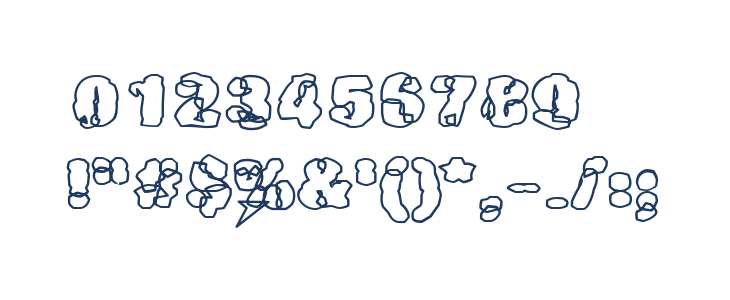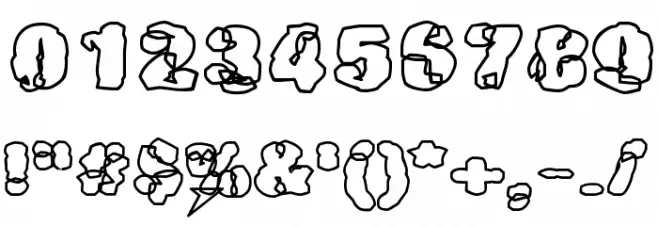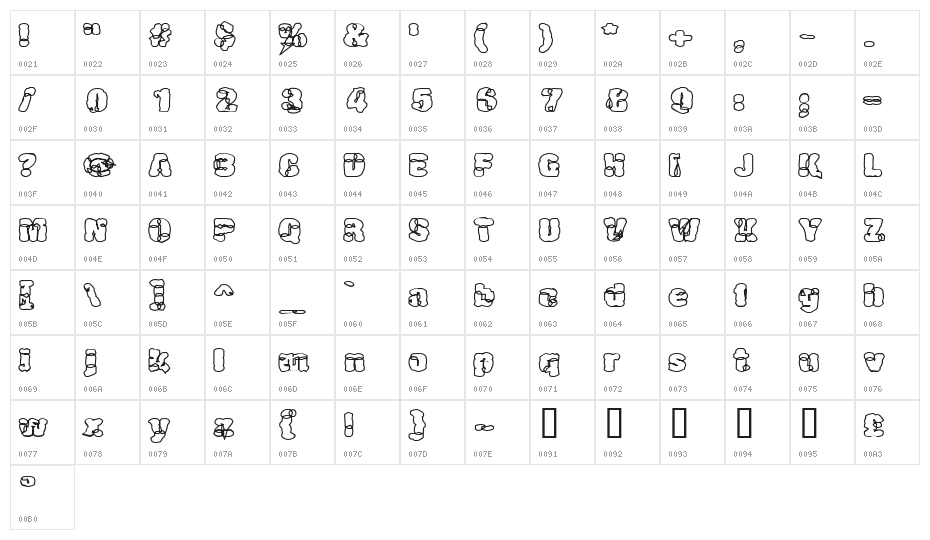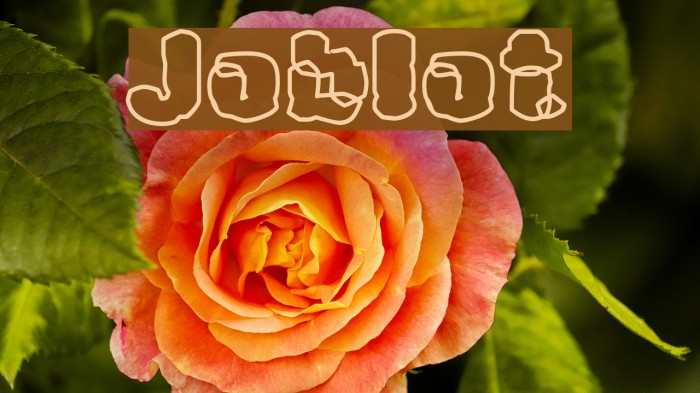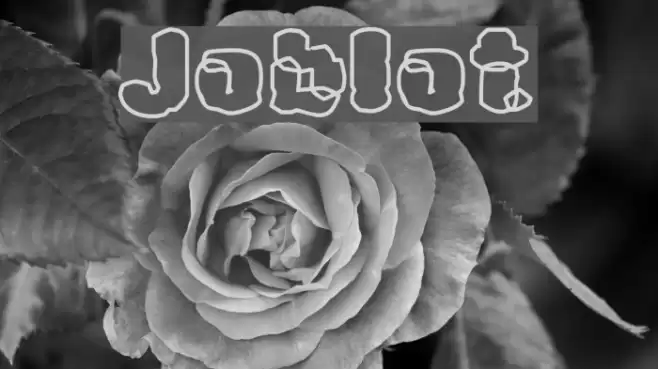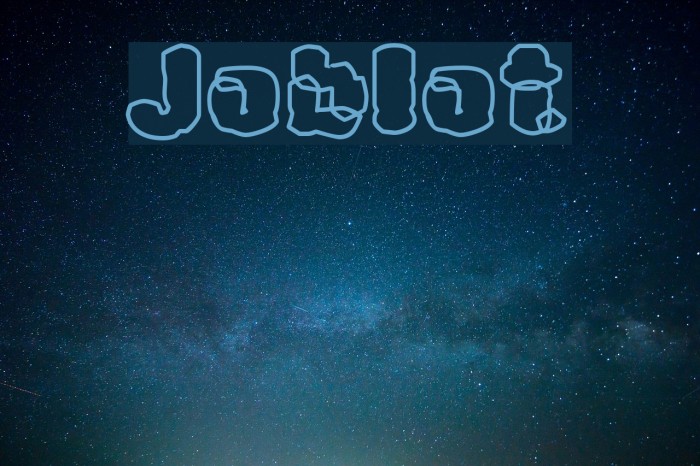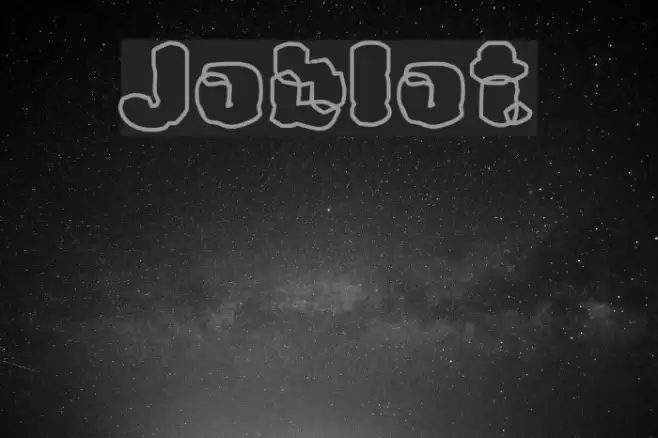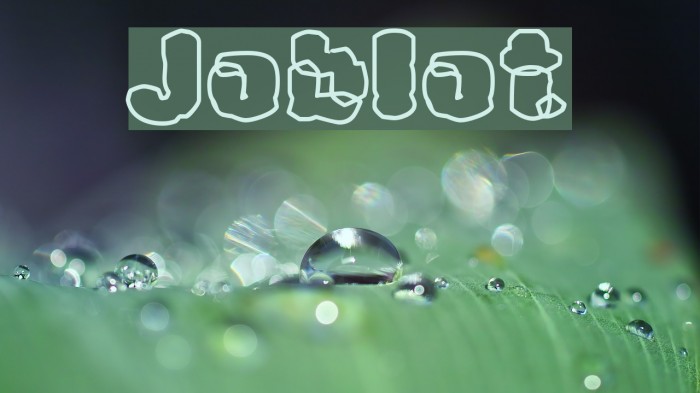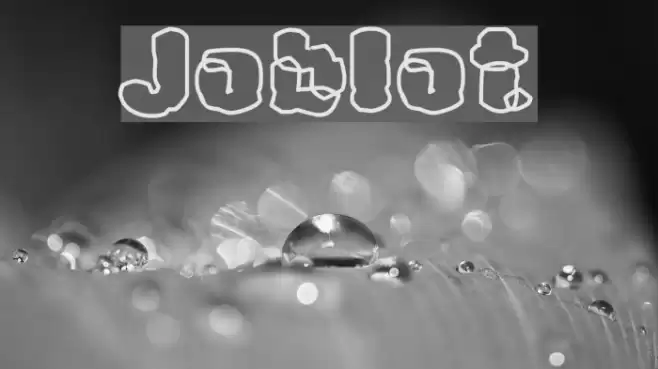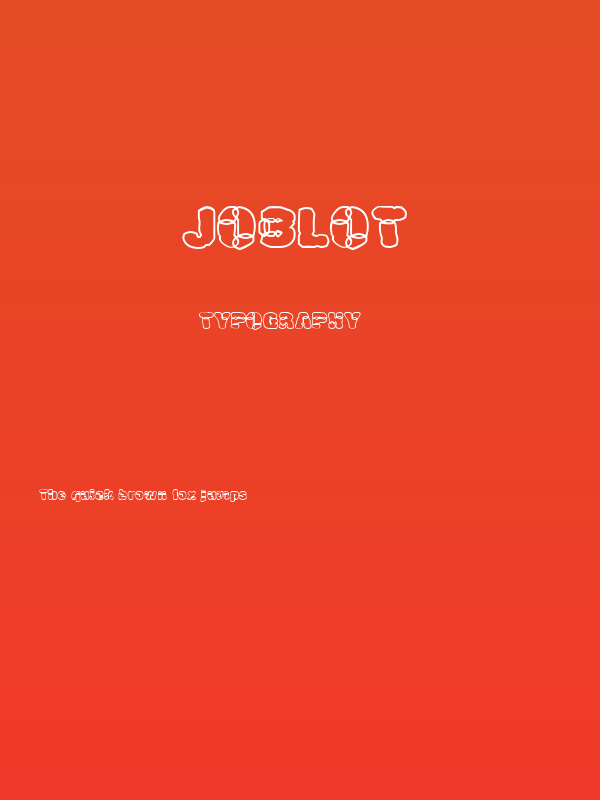
Joblot Font
Joblot Description
This font features a unique and playful design with a hand-drawn appearance. Each character is outlined with a bold, irregular stroke, giving it a whimsical and artistic feel. The letters are slightly distorted, adding to the casual and informal style. The font maintains a consistent thickness throughout, with rounded edges that soften the overall look. It is highly decorative and stands out due to its unconventional shapes and creative flair. The font is suitable for projects that require a fun and eye-catching aesthetic, making it ideal for children's materials, creative posters, or artistic branding.
| Proposed Projects | Ideal for children's books, creative posters, artistic branding, and playful designs. |